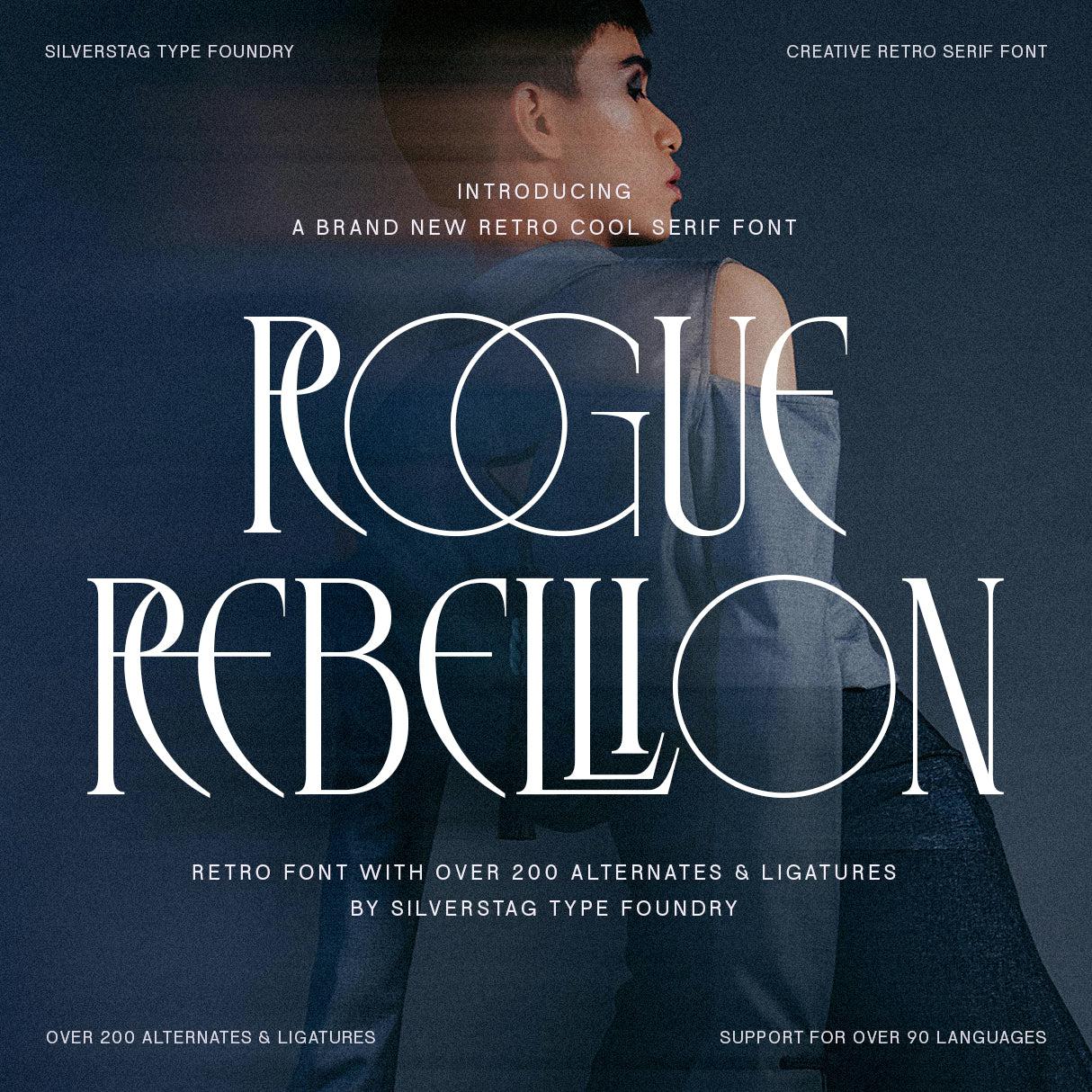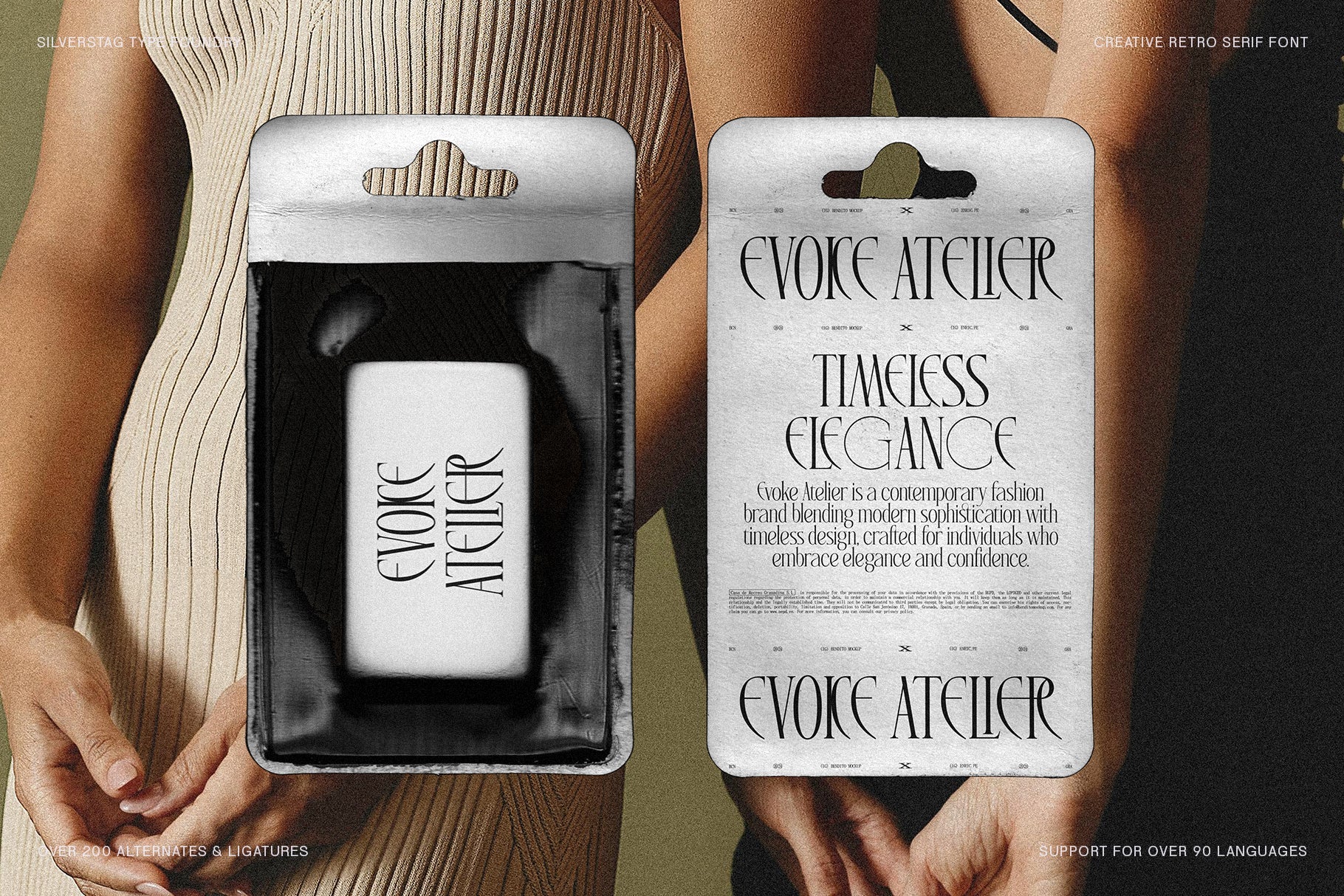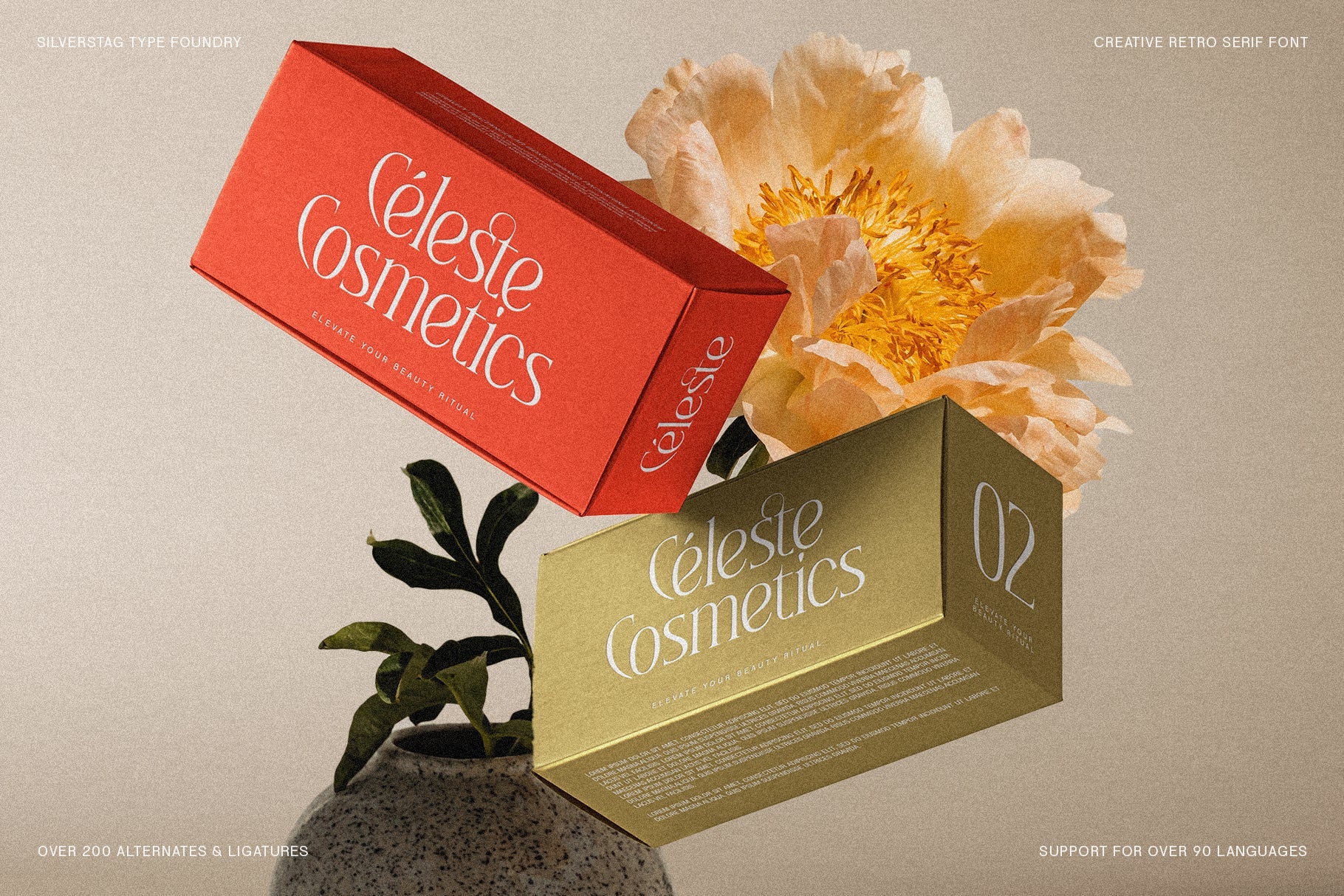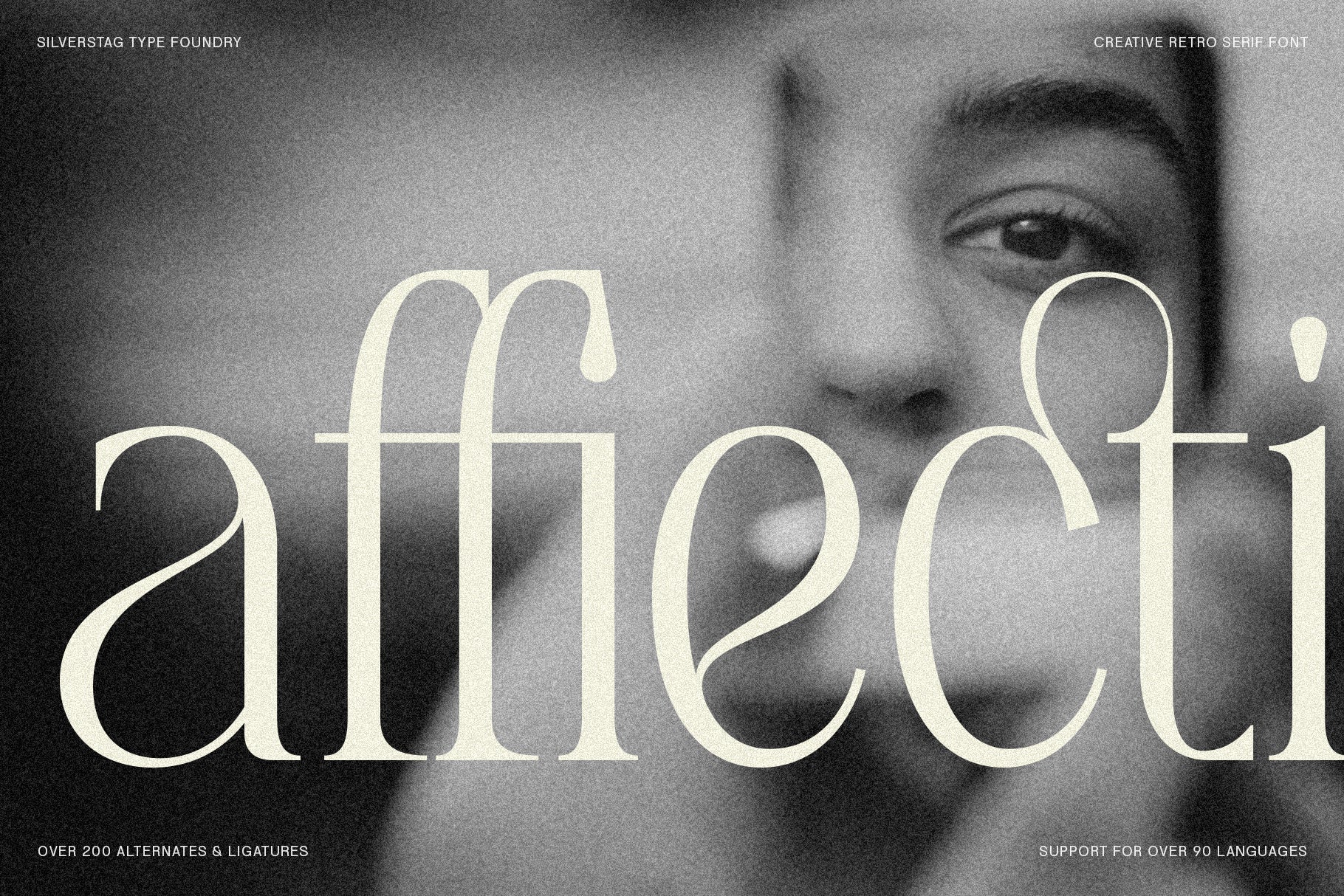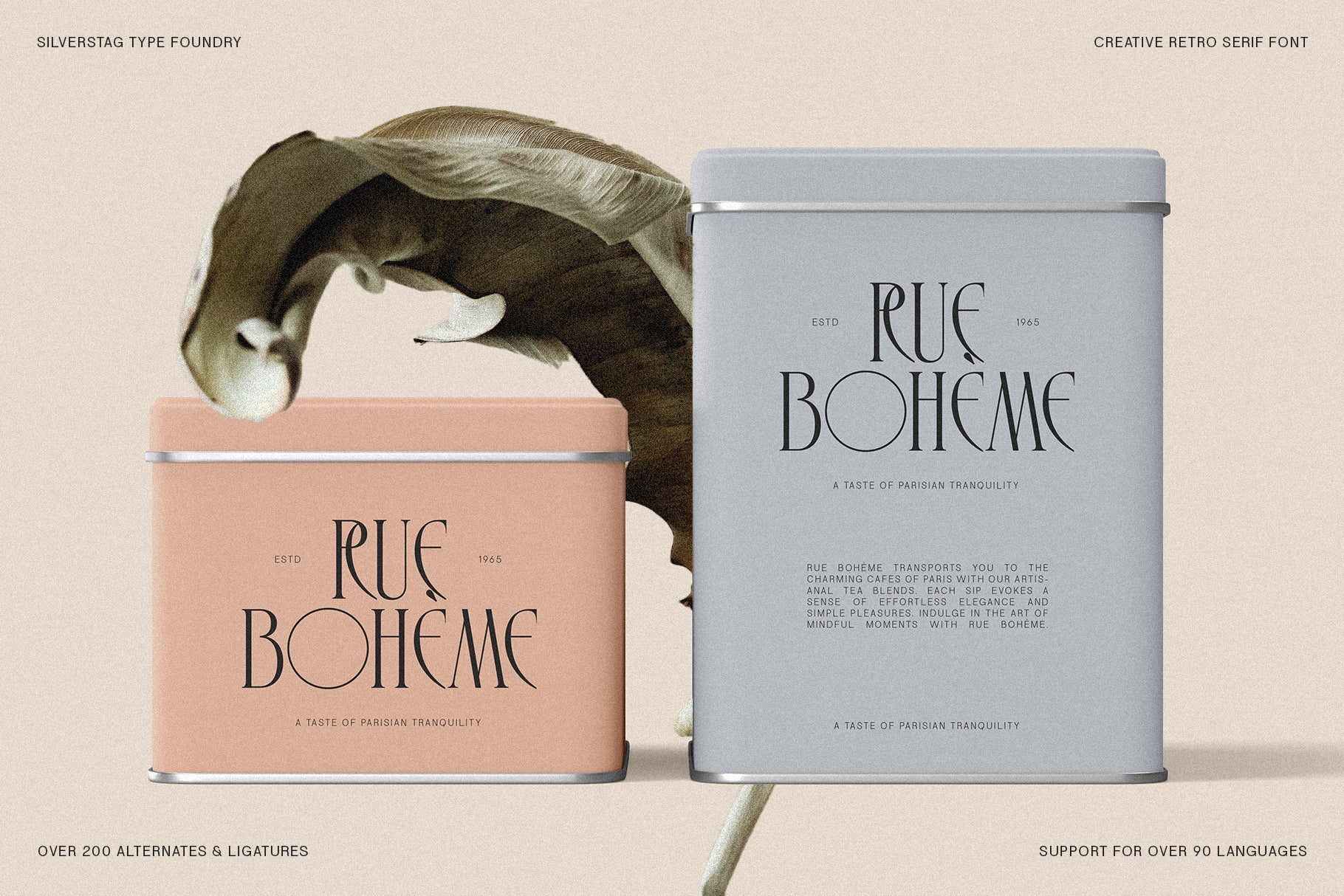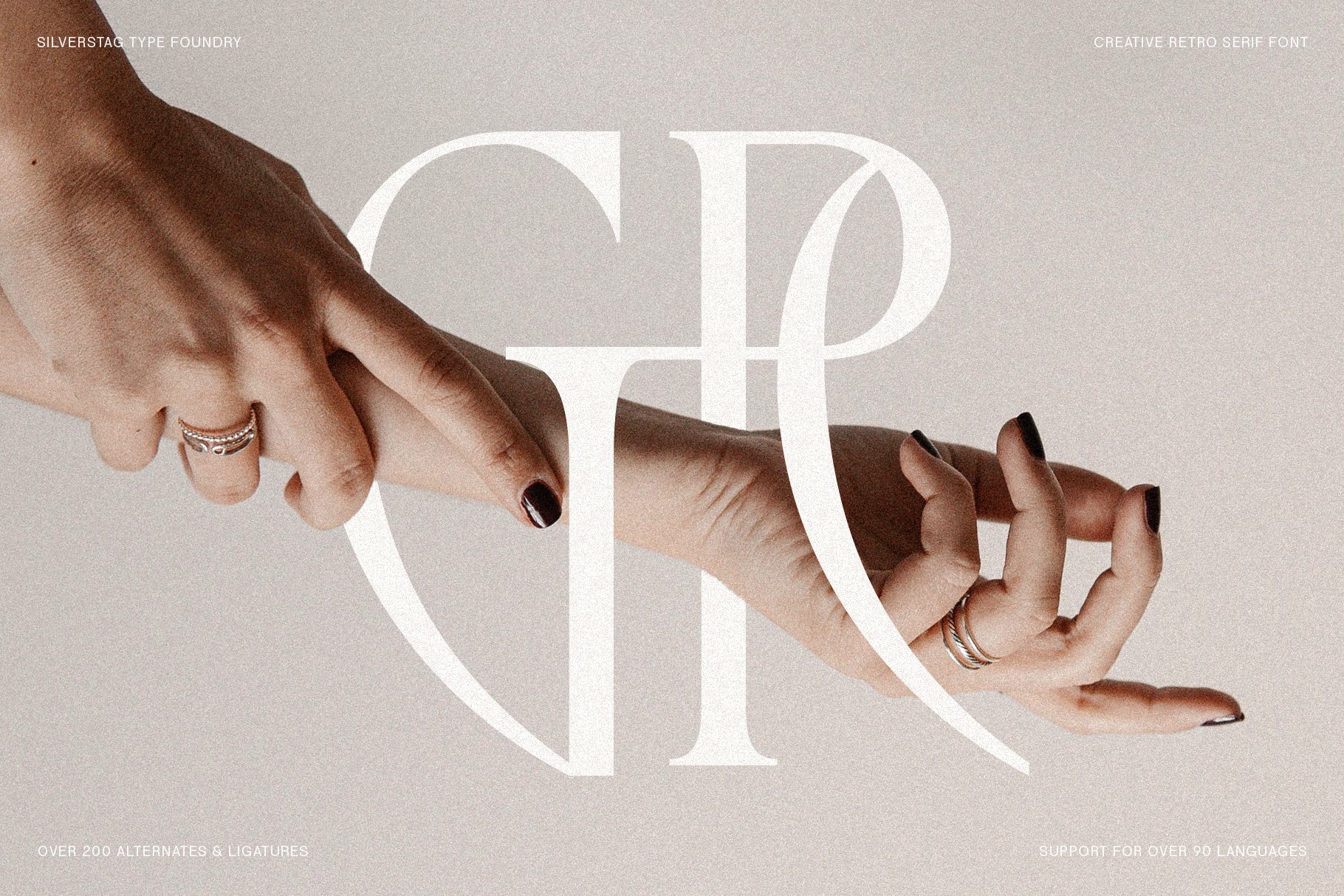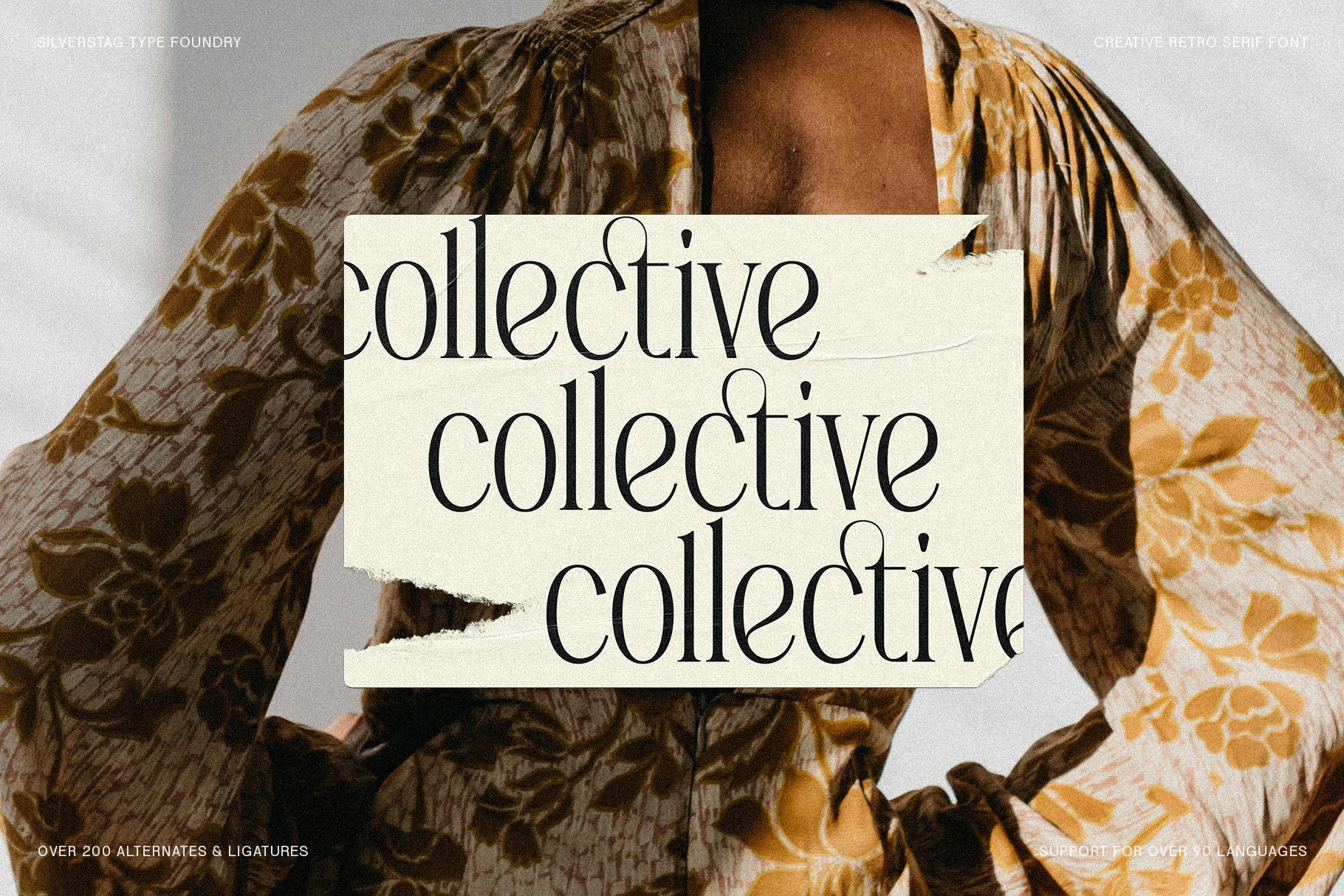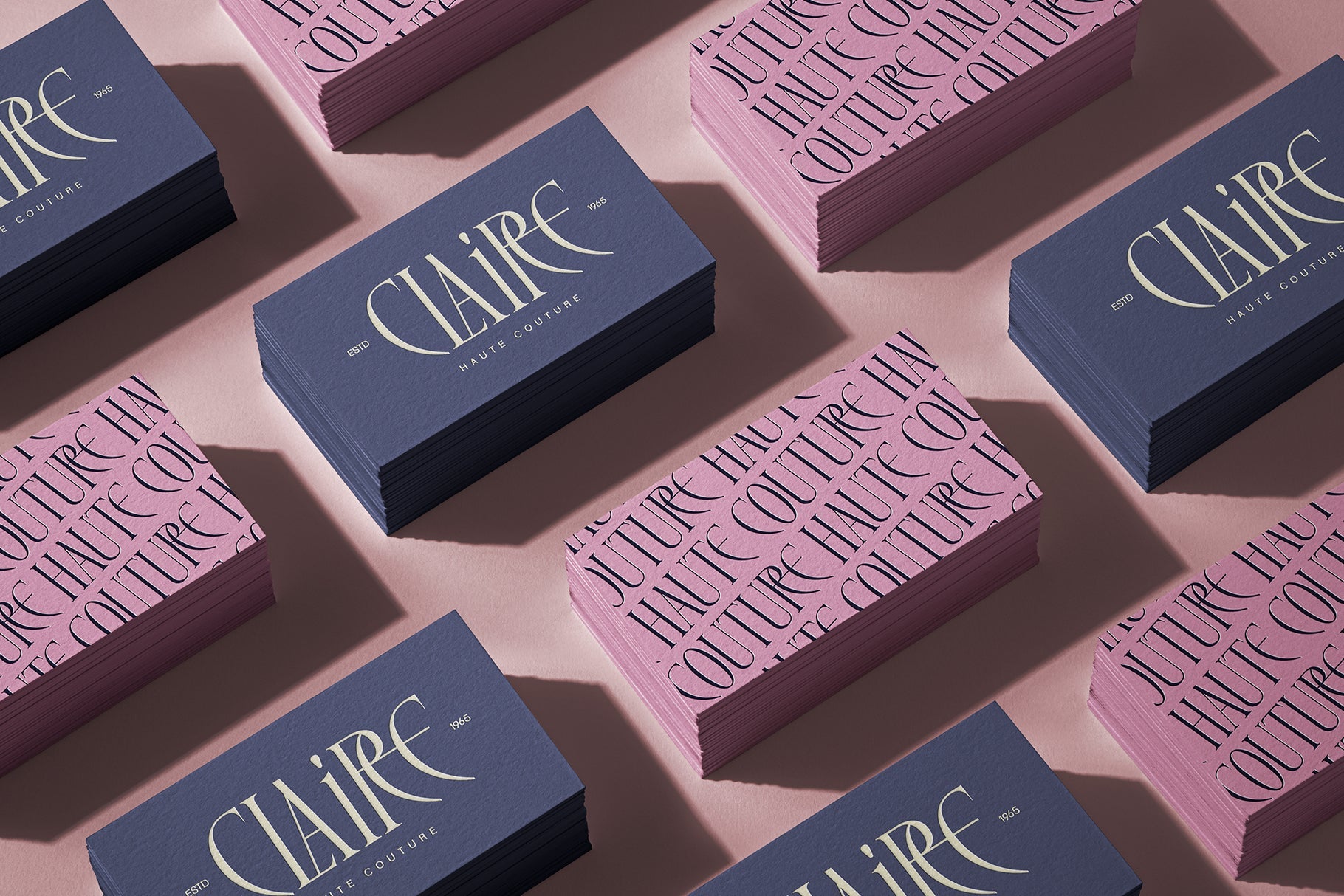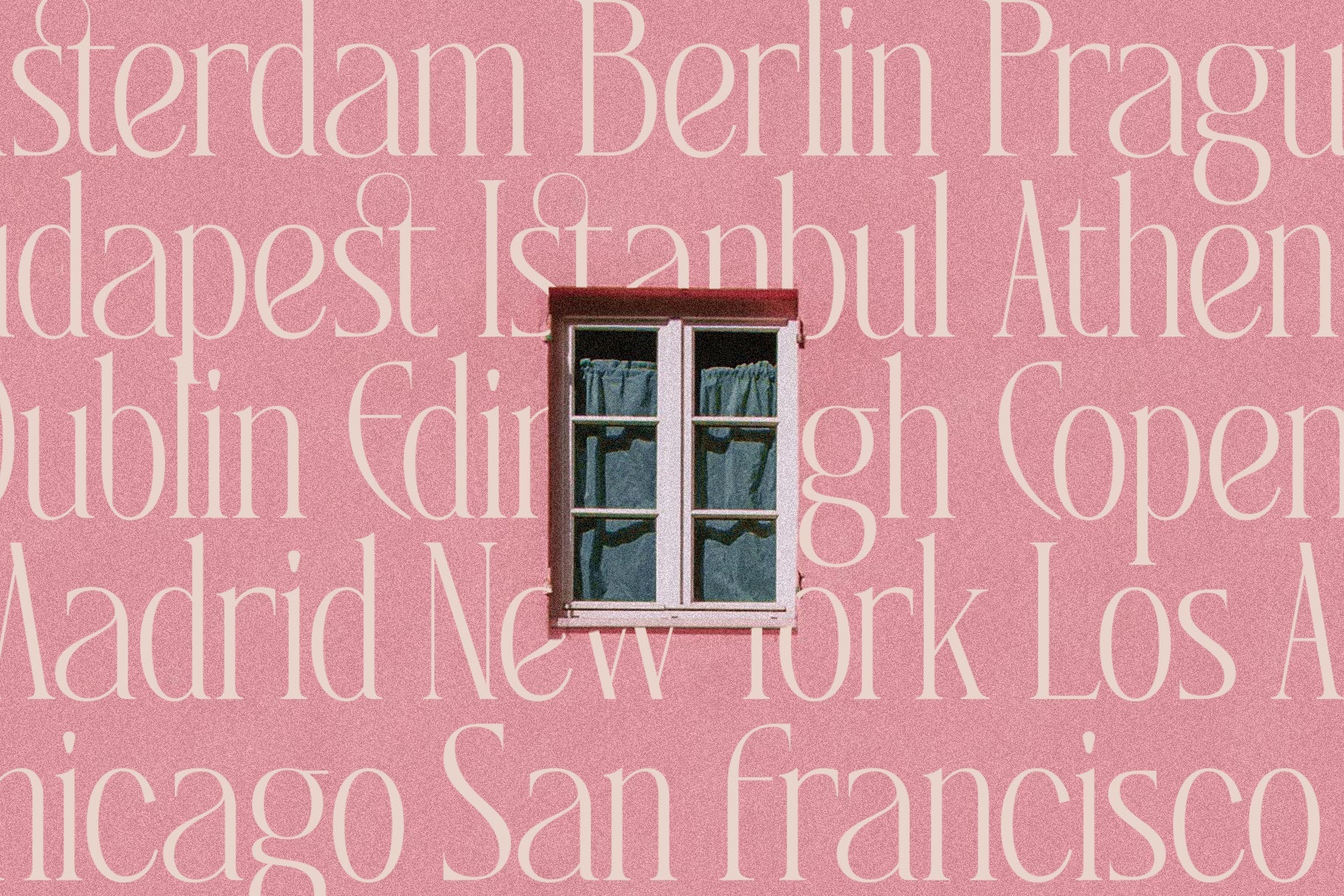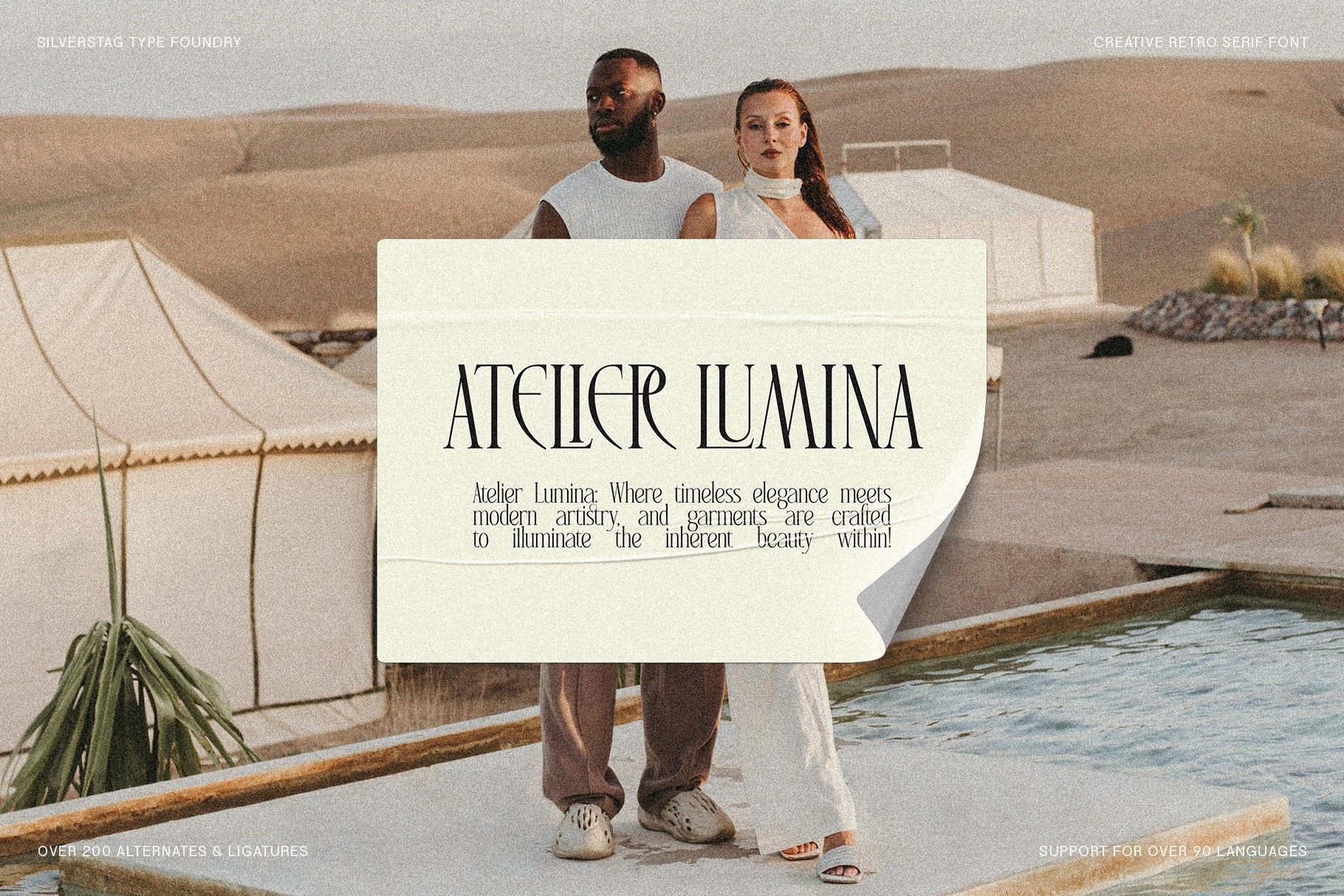
SLTF Rogue Rebellion - Ligature Serif Font
SLTF Rogue Rebellion: Where Elegance Meets Rebellion
Unleash your creativity with SLTF Rogue Rebellion, an exquisite retro-inspired serif font designed for those who dare to stand out. This typeface combines timeless sophistication with a bold, rebellious edge, making it the perfect choice for projects that demand attention and elegance.
Crafted with meticulous detail, Rogue Rebellion features over 200 unique ligatures and chic, flowing lowercase letters, bringing unparalleled charm to your typography. With support for over 90 languages, this font is ready to make an impact on a global scale.
Key Features
• Exquisite Ligatures: Over 200 expertly designed ligatures to elevate your typography with unique, custom touches.
• Retro Elegance: A perfect balance of vintage charm and modern style for truly timeless designs.
• Multilingual Versatility: Supports over 90 languages, ensuring your designs can connect with audiences worldwide.
• Chic Lowercase Letters: Refined and stylish lowercase forms to add grace and flow to your text.
The SLTF Rogue Rebellion is a ligature serif font that features a retro-inspired design. It includes over 200 unique ligatures, chic lowercase letters, and supports more than 90 languages, making it a versatile choice for various typography needs.